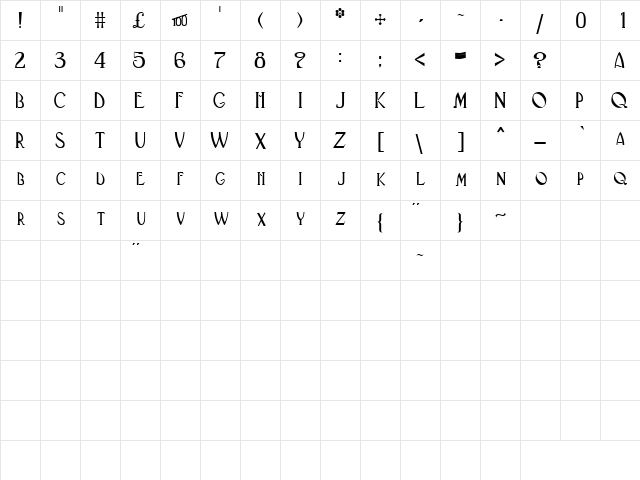
PoimenSCapsSSK Regular
Design Context for PoimenSCapsSSK Typeface
PoimenSCapsSSK takes a measured approach to typography — its balanced proportions and neutral character make it a reliable workhorse for both digital and print work.